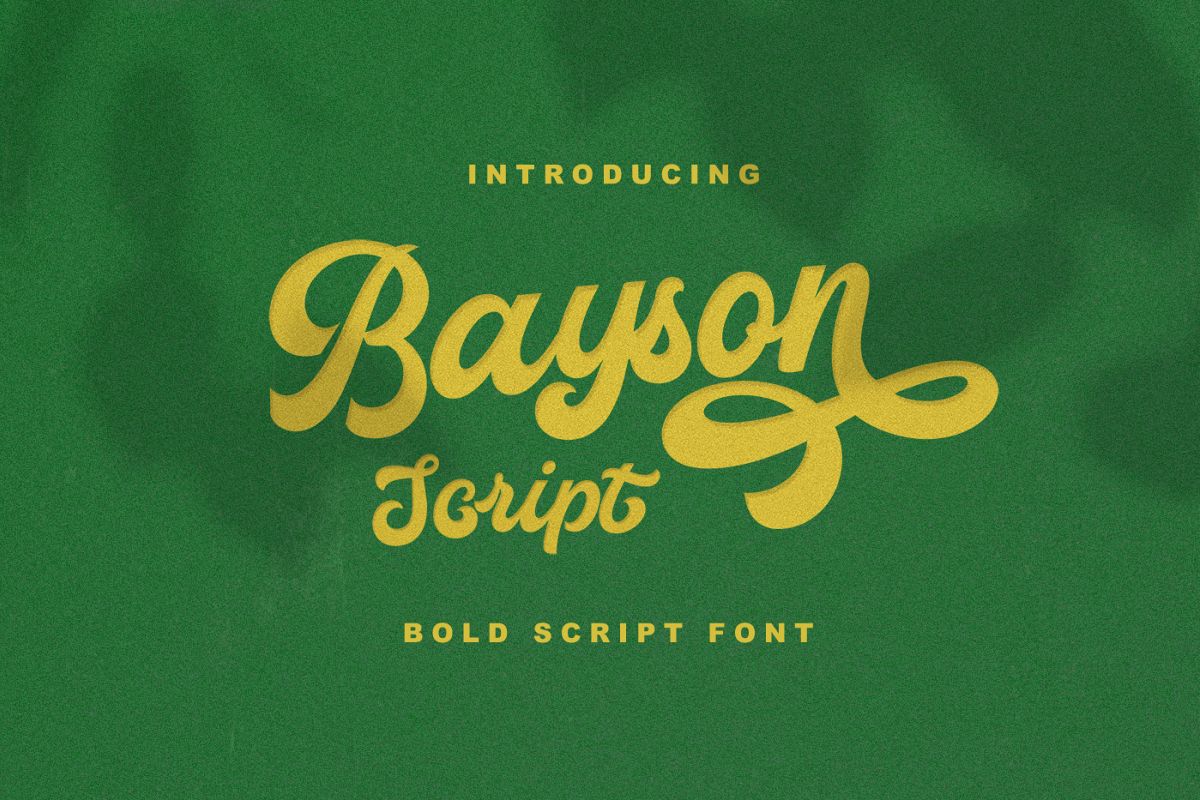
BAYSON SCRIPT
BAYSON SCRIPT is new a bold script, Beautiful with a classy attractive look and feel
Perfect for logotypes and titles of a project to emit friendly earnestness.
-Stylistic Alternates and ligatures-Character Set A-Z-